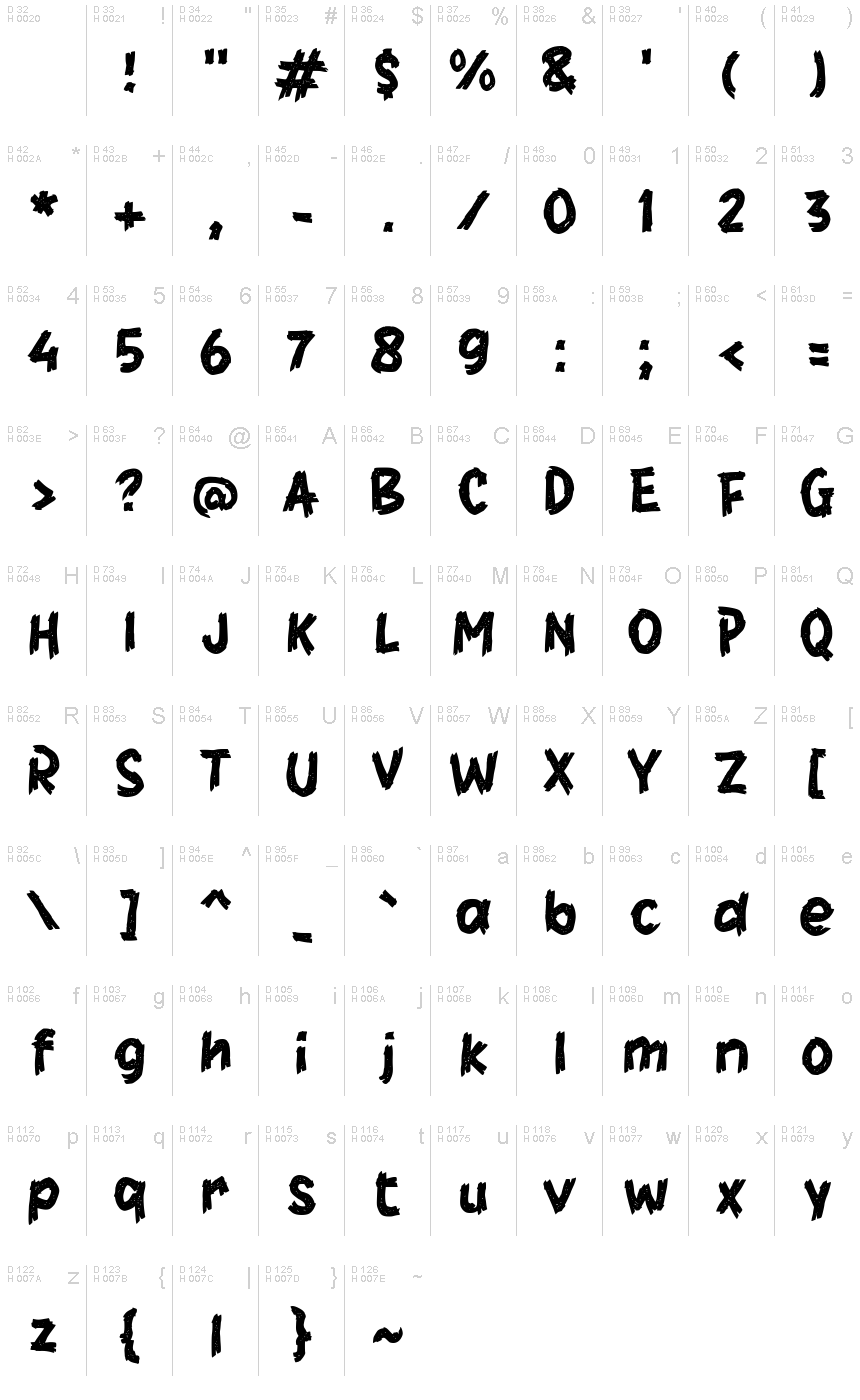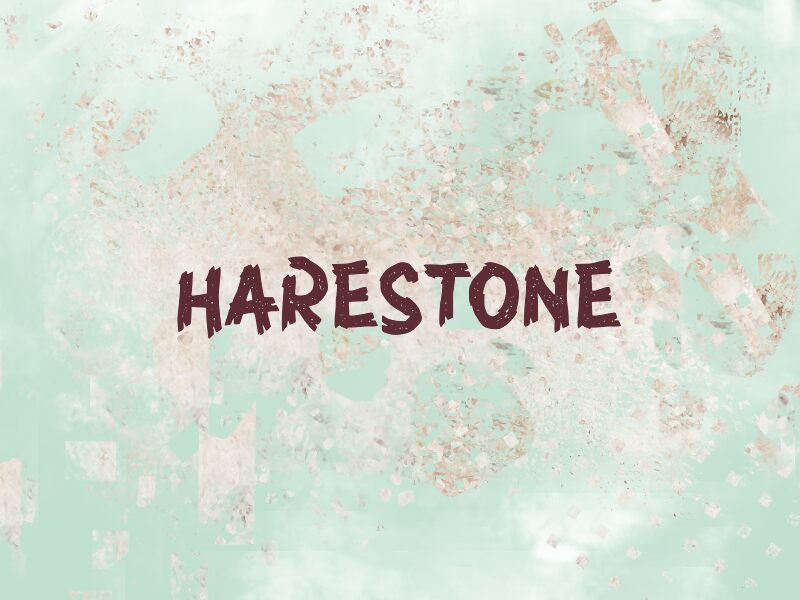
HARESTONE
Harestone font by wep is a bold script font with irregular textures and decorative spots. Its trash style gives a playful, casual, whimsical, and handmade vibe that evokes nostalgia. Use this free font for artistic projects or artisanal branding.
This display typeface fits children’s materials and fun-themed designs like posters, headlines, food packaging, logos, book covers, stickers, illustrations, comics, and invitations.